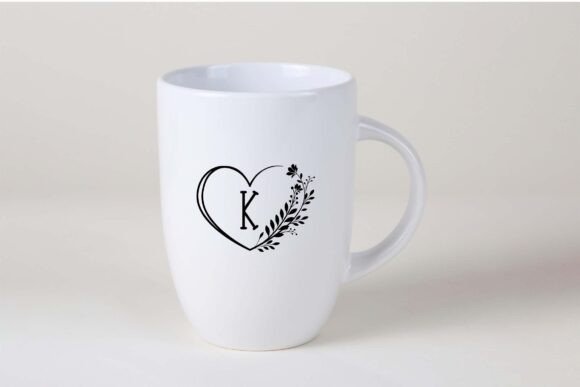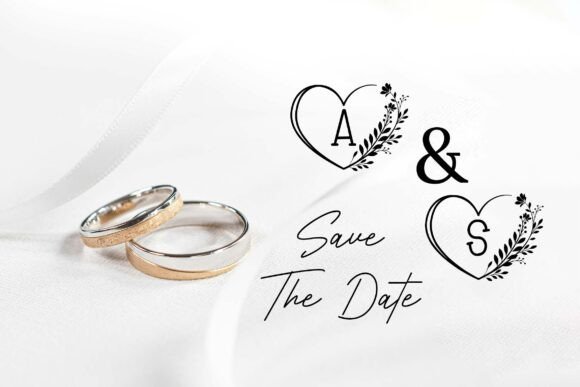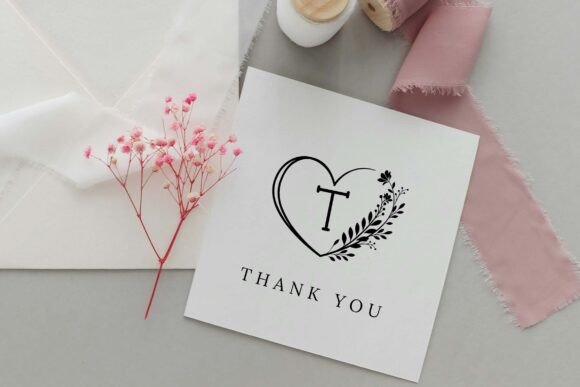
Introduction to Monogram Love Flower Font
Monogram Love Flower is a romantic and graceful monogram font that combines delicate floral elements with elegant letterforms.
Perfect for wedding designs, feminine branding, love-themed invitations, greeting cards, and stationery art Let each character bloom with beauty and create unforgettable, heartfelt creations.
Key Features of Monogram Love Flower Font